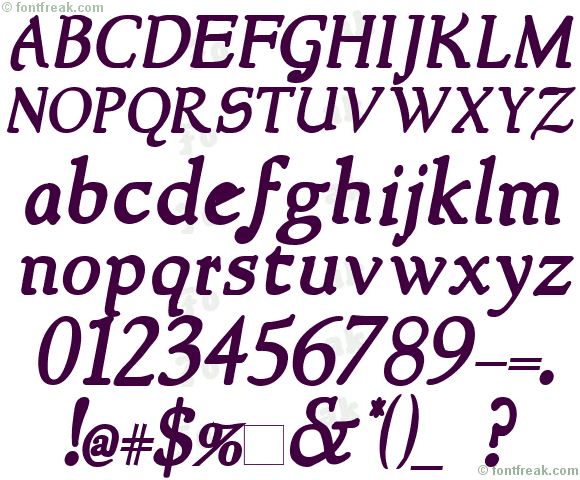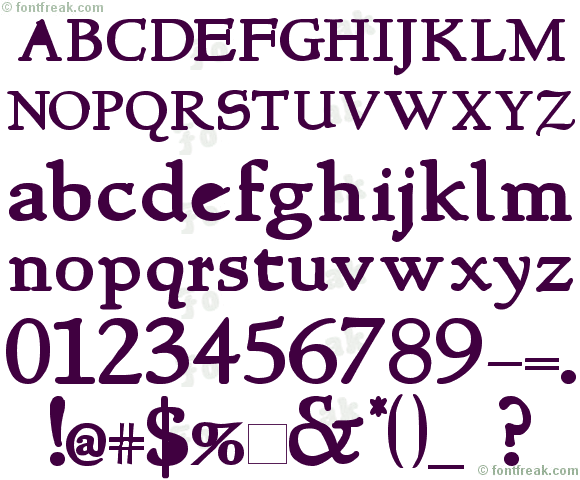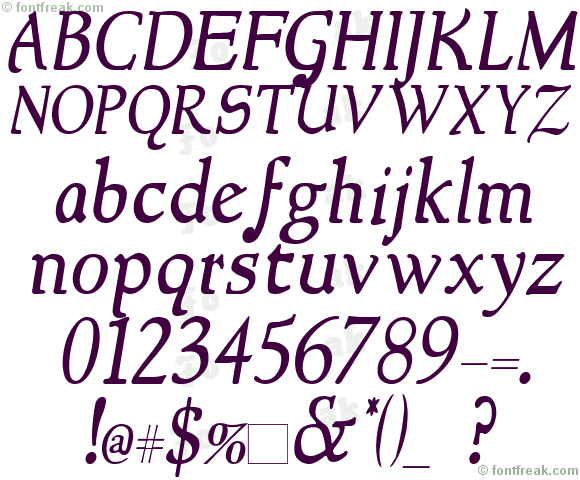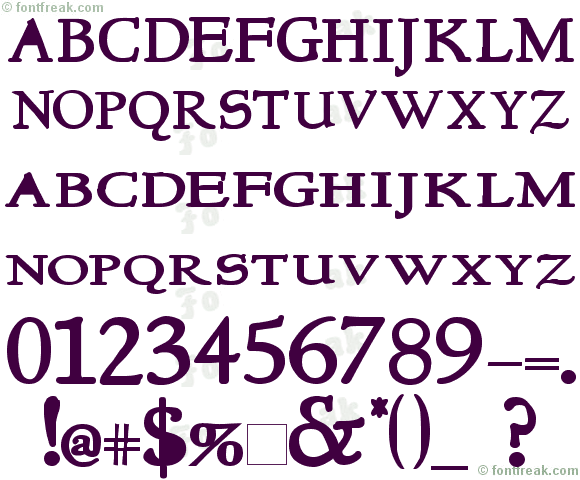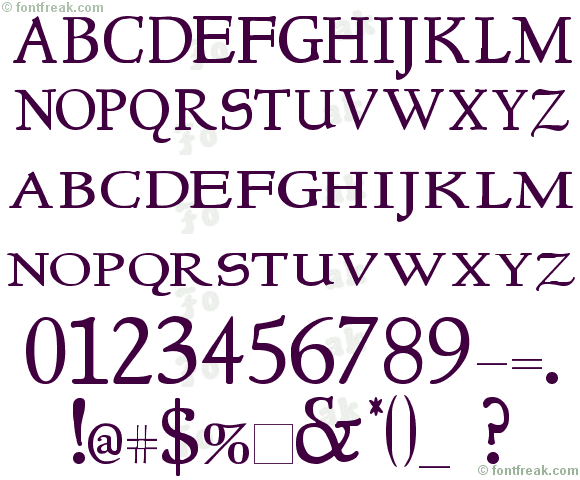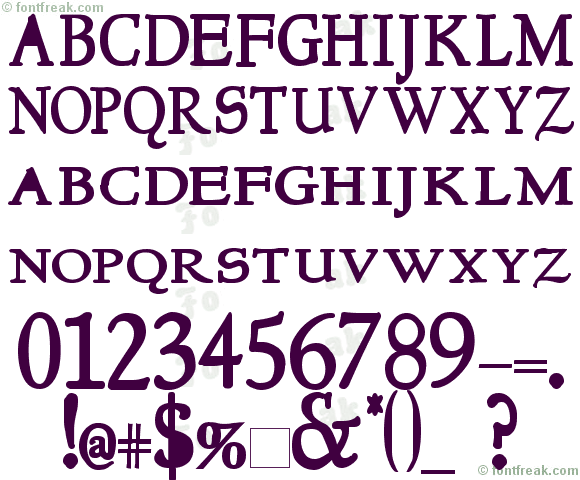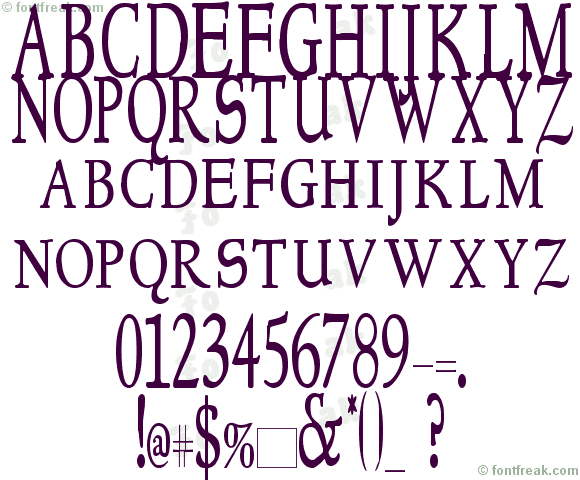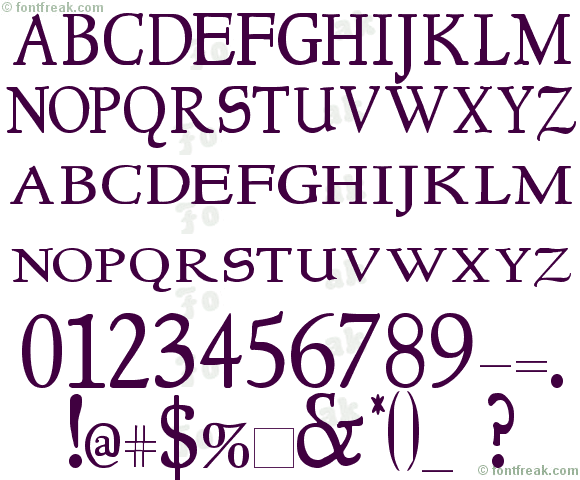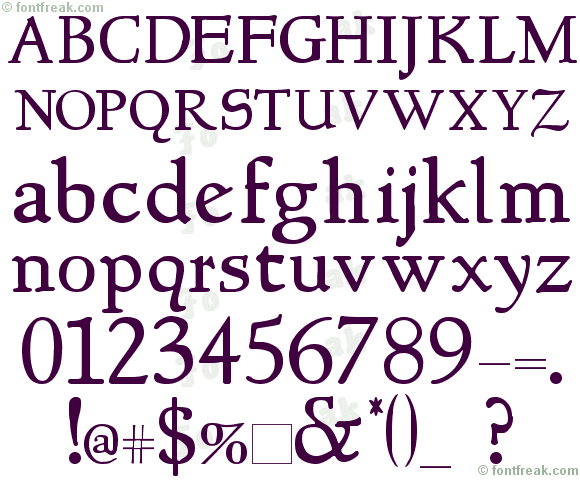
About New Style
The New Style font by Paul Lloyd is a captivating display typeface that blends elegance with modernity. This freeware font is characterized by its unique serif design, which features a harmonious balance between bold and italic styles. The strokes display a medium weight with subtle contrast, giving it an inviting yet authoritative presence. The letterforms are well-spaced, ensuring readability while maintaining a stylish flair. The New Style font also incorporates small caps for added versatility, making it suitable for various design contexts.
This font is particularly well-suited for specific use cases, such as wedding invitations, where its elegant curves can evoke a sense of romance and formality. It also shines in movie posters, where a bold yet sophisticated typeface can capture attention and convey genre themes effectively. Restaurant menus can benefit from its clear readability and stylish appeal, making dishes more enticing to patrons. Additionally, the New Style font can enhance branding for small businesses seeking to establish a distinct identity through marketing materials and signage.
Targeted towards graphic designers, small business owners, and content creators, the New Style font offers an exceptional tool for those looking to elevate their design projects. Its unique blend of traditional and contemporary elements allows for creative expression while ensuring clarity and professionalism.
What sets the New Style font apart is its ability to convey a sense of both innovation and tradition, making it a versatile choice for a wide range of applications. With its striking aesthetics and practical usability, the New Style font free download is a must-have for anyone looking to enhance their typography toolkit. Embrace the elegance and modernity of the New Style font for your next creative endeavor.